In this month’s collection of the best new fonts, we’re going to see some fonts that test the limits of weight, height, and gravity. We’re also going to see font families that merge unexpected styles with one another.
1. Bells Morten
Bells Morten is a display font inspired by vintage signage. With high-impact lettering that’s easy to read, this font would be great for websites that are short on words and heavy on imagery.
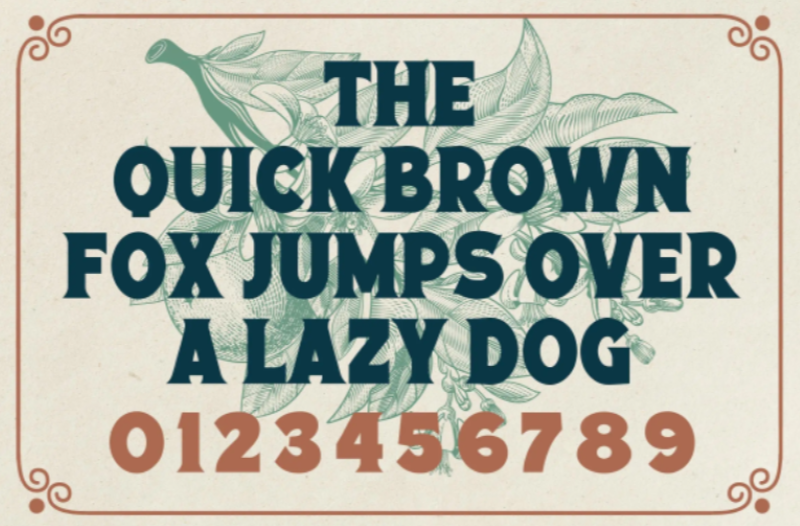
2. Bold Tension
Bold Tension is a modern font designed for technology and science companies. While the font might not be ideal for pages that require a lot of reading, it would look great in logo and hero imagery.
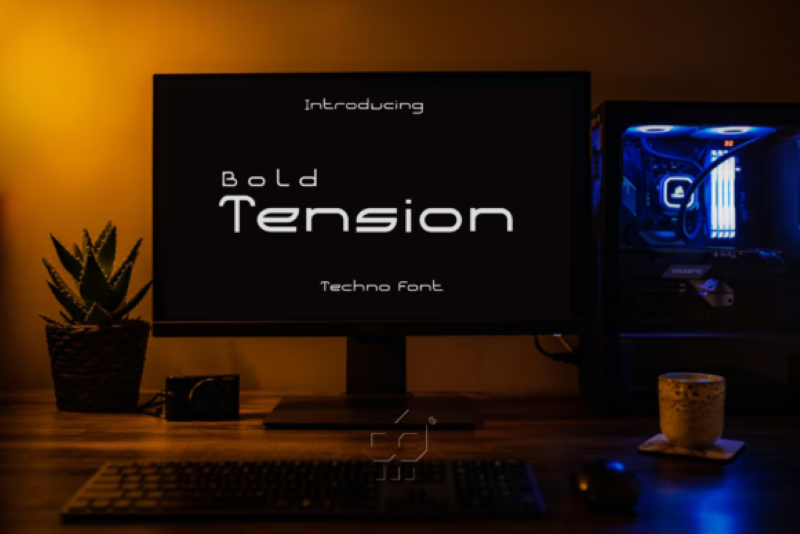
3. Carino Sans
Carino Sans is an attractive sans serif font. All three styles — Regular, Semibold, and Bold — are all-caps, which means this will be a useful font for website headers, logos, and other branded materials.
4. Exposure
Exposure is a variable font, but not in the way most fonts offer variation. This one is inspired by the principle of exposure in photography. So the variation takes place in the axis, allowing you to control how much light is exposed to the lettering.
5. Garden Marker
Garden Marker is an interesting font family. It contains a serif font, which looks like something from a manuscript. It also has a brush variant as well as a textured clip art variant. You could realistically use the font pair anywhere on your site and it would look fantastic.
6. GT Planar
GT Planar is a massive font family containing 42 styles ranging from Thin to Black and with variants for Retalic (-45°), Upright, and Italic (+45°). This angular flexibility will allow you to move your lettering in all kinds of directions, giving your website an anti-gravity feel.
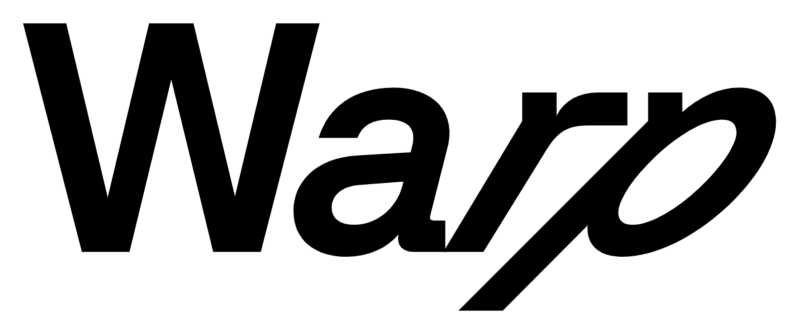
7. Historina
Historina is a delicately drawn handwritten font. It would work really nicely in logos, hero imagery, headers, and accent text for brands with a luxury offering.
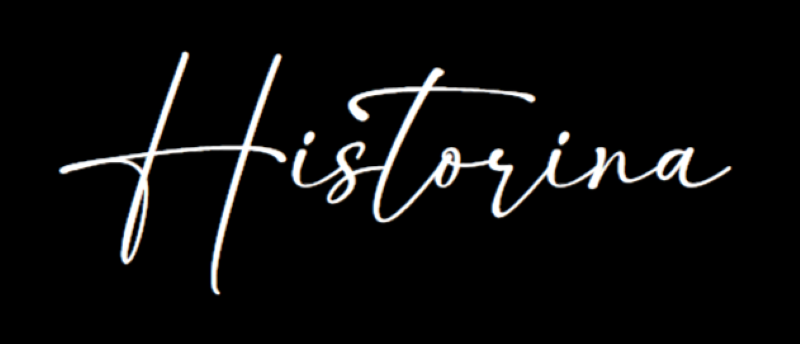
8. Mallory
Mallory is a uniquely styled font. It’s meant for display placement, which is a good thing since legibility could be problematic at smaller sizes. To make the most of this font, use it to style logos or headlines with just a few words and in areas where you can make the font large.
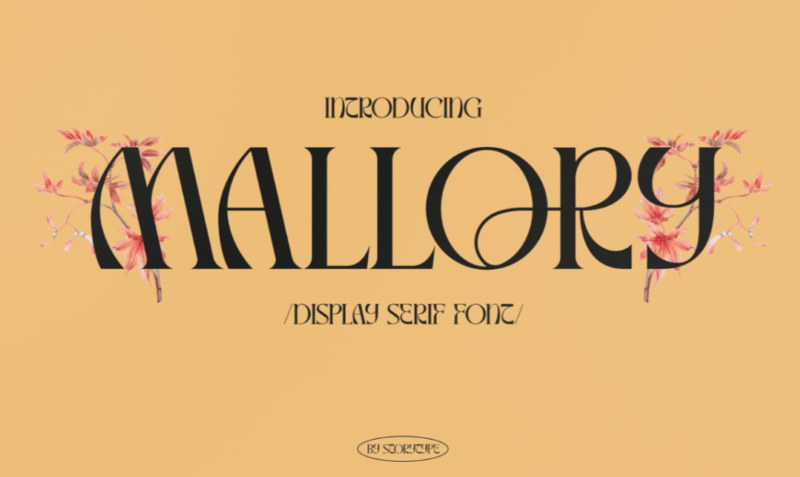
9. Mogguine Asturias
Mogguine Asturias is a serif font with razor-thin edges that exudes old-world class and style. Use this high-contrast font to design logos, headlines, and even product packaging for luxury retail and fashion brands, restaurants, and more.
10. Mori
Mori is a sizable font family with 16 variants ranging from Extra Light to Extra Bold. It also includes character sets for circled and squared numbers, Latin symbols and punctuation, Japanese symbols and punctuation, as well as subscript and superscript numbers. If your website has a heavy numerical component, this would be a nice font to use for it.
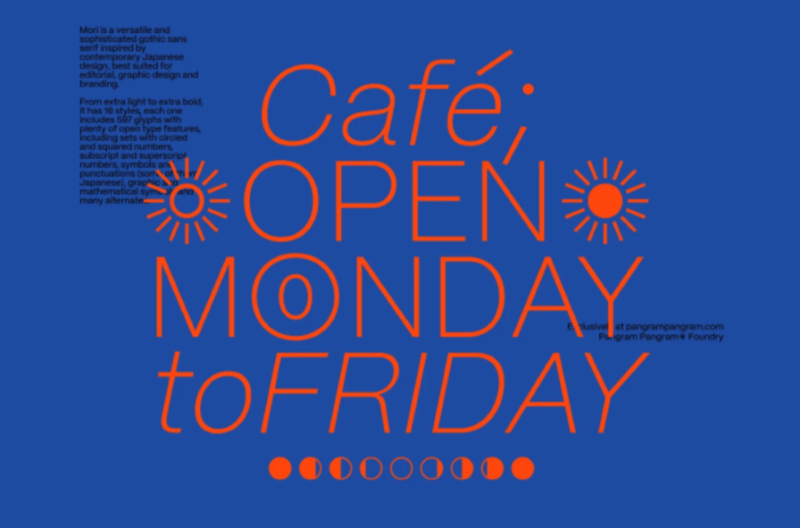
11. Paterson
Paterson is an attractive retro serif font. It comes with additional glyphs and swashes so you can add extra personality if you feel it’s needed.
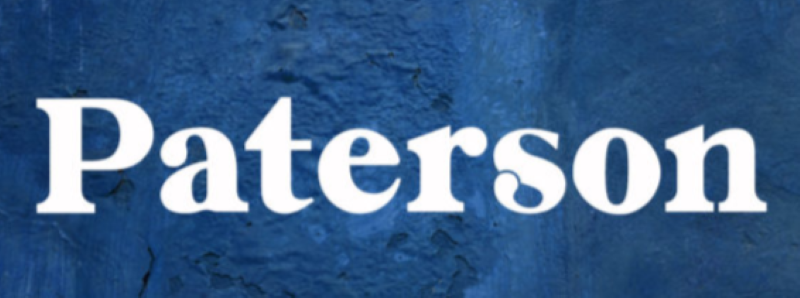
12. Phenomicon
Phenomicon looks a lot like the fonts used to style memes — especially when memes and GIFs first entered the pop culture lexicon. As such, this tall, condensed display font would be really effective on websites targeting Millennials and Gen Zers.
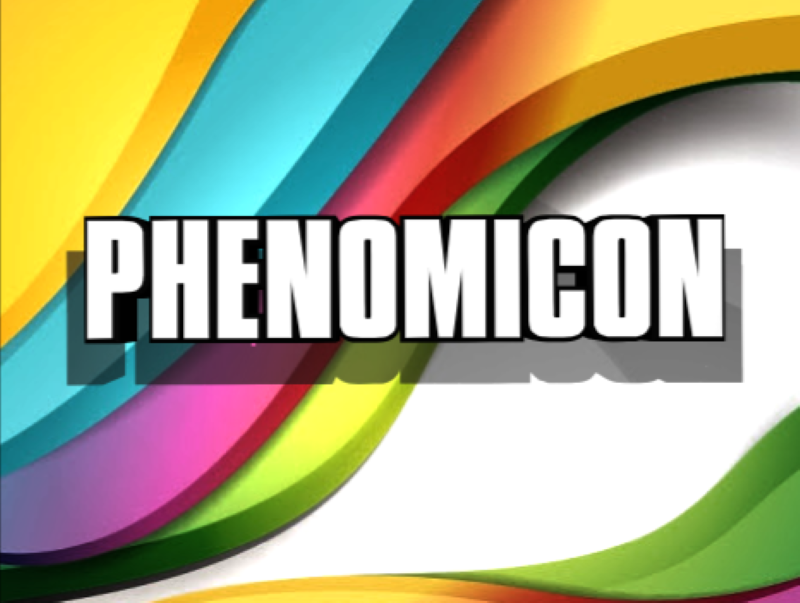
13. Spring Note
Spring Note is a fun and friendly duo font. It comes with an all-caps display font as well as a bouncy cursive font, so there’s no need to worry about font pairing when you use this font as it’s already been taken care of for you.
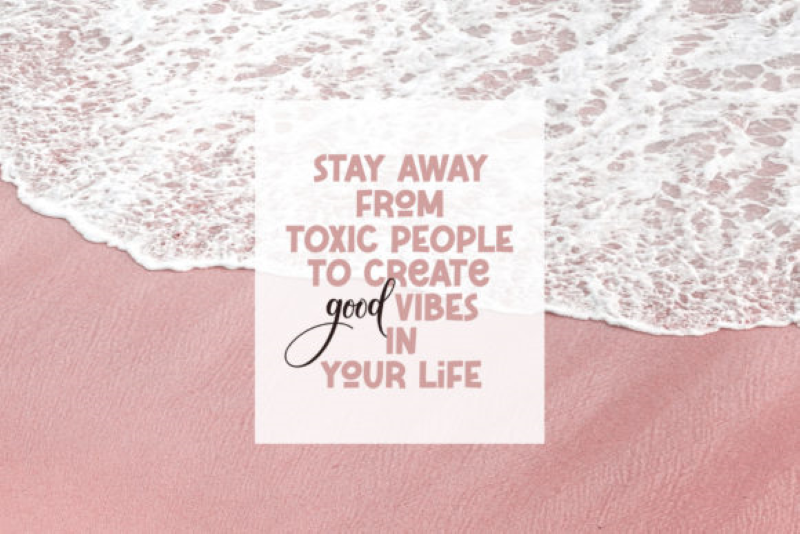
14. Summer
Summer is a calligraphy-inspired font. Its upright lettering and well-balanced characters make this an attractive and legible font. It would look especially nice on websites for service-based businesses or professionals wanting to exude a friendly and welcoming personality.
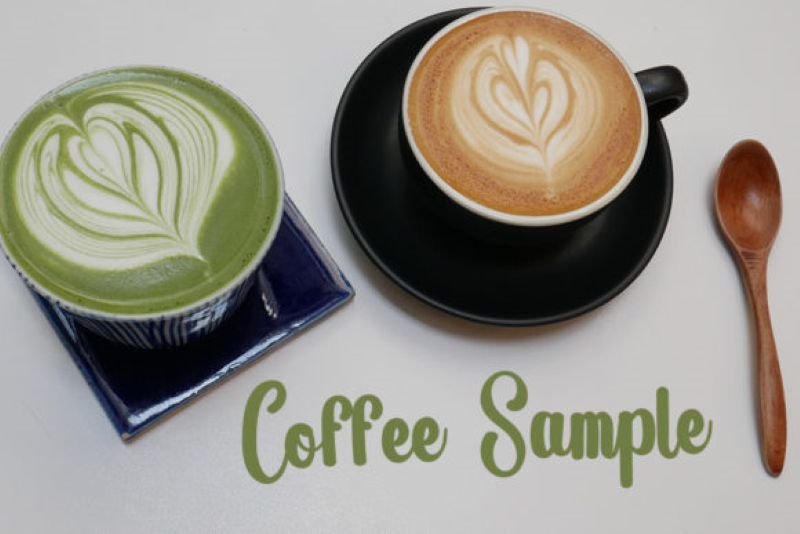
15. Writer
Writer is a graffiti script font that looks like it was drawn with a flat marker. Pair the alternate glyphs with all-caps text to give your site a grungy, graffiti-like design. Or keep it simple and use the regular character sets with mixed-case wording.